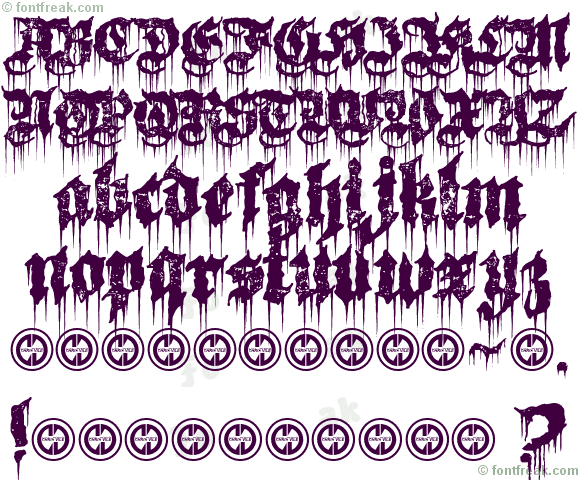
Burn The Witch
About Burn The Witch
The "Burn The Witch" font by Chris Vile is a striking display typeface that captures attention with its unique and bold aesthetic. This font falls into the decorative category, characterized by its heavy, dripping strokes that evoke a sense of drama and intensity. The uneven stroke weight adds a gritty texture, creating a visually compelling contrast that makes it stand out in any design. The spacing between letters is tight, which contributes to the font's cohesive and impactful appearance, making it ideal for projects that require a strong visual statement.
This font is particularly well-suited for use in various creative projects. It can be a fantastic choice for movie posters, especially those in the horror or fantasy genres, where it can amplify the thematic elements of the artwork. Additionally, "Burn The Witch" works wonderfully for Halloween-themed invitations, giving them a chilling yet playful vibe. It can also enhance restaurant menus that aim for a gothic or rustic atmosphere, effectively drawing in curious patrons. Furthermore, graphic designers and content creators may find it perfect for merchandise designs or promotional materials that aim to captivate a niche audience.